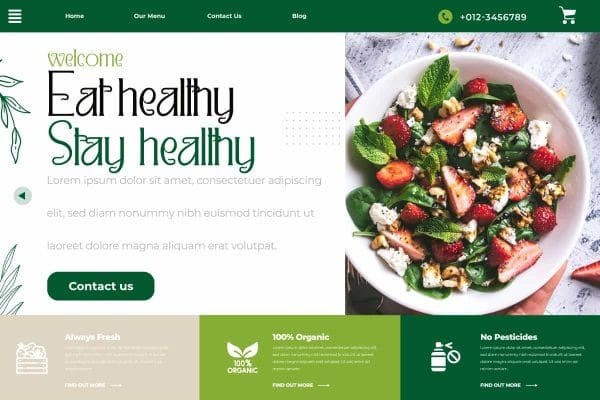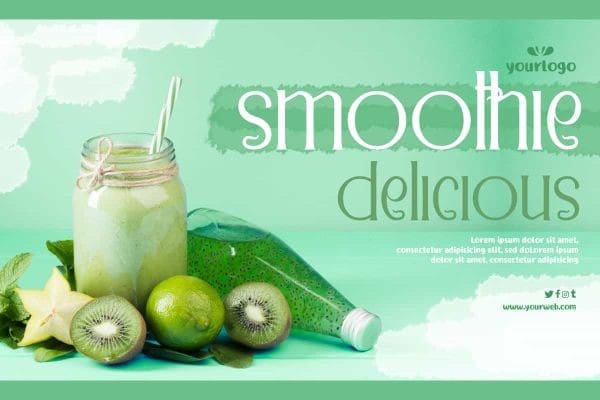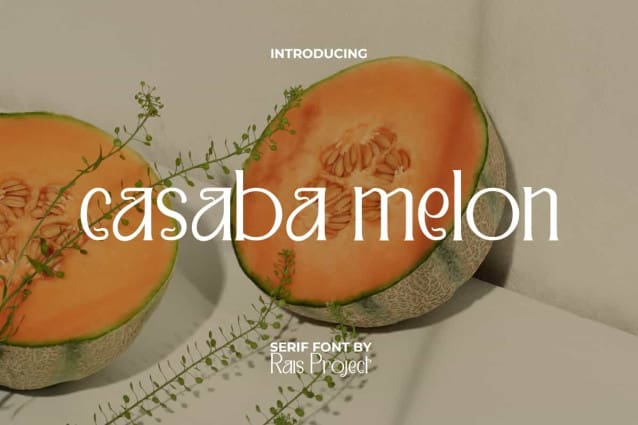
Casaba Melon Font
Casaba Melon Font is a modern and fancy serif display font designed by RaisProject. This font has a clean look with the addition of small lines that resemble the unique stem of a melon. It will be good for any designs, such as brand image, cover, custom design, flyer, invitation, label, magazine, marketing material, menu, poster, product packaging, quotes, signage, stationery, website page, and more!
Casaba Melon Font including a complete set of Uppercase and Lowercase basic characters, Numerals, and large range of Punctuation. This font also suitable for various industries, such as advertising, beauty product, cafes, fashion, home furniture, marketing, printing, publishing, real estate, restaurant, wedding organizer, etc.